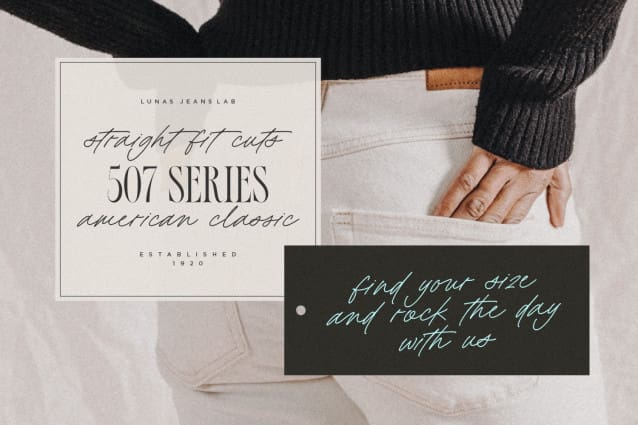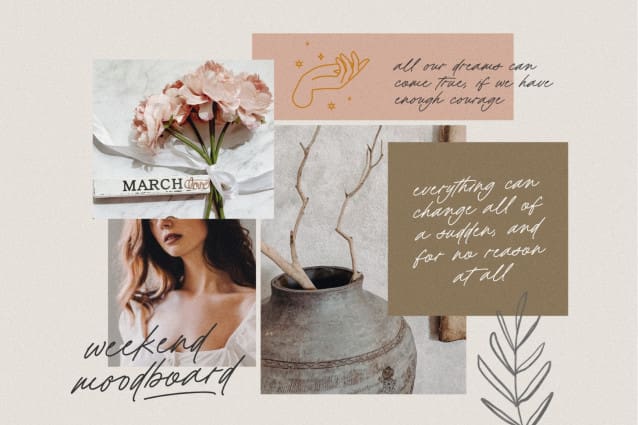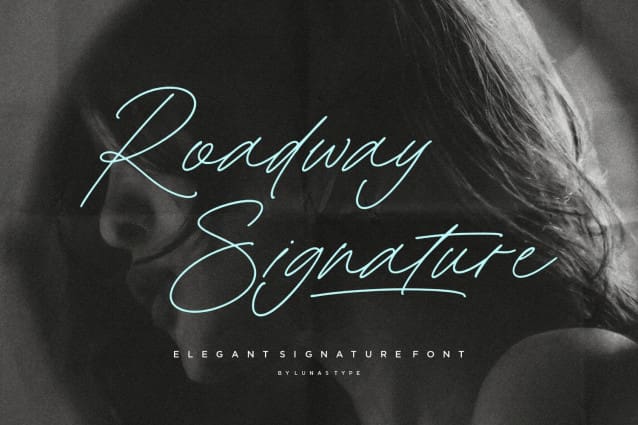
Roadway Signature Font
Roadway Signature Font is a modern and elegant signature font. This Font have natural flow and unique shape for each letter.
RoadwaySignature is perfect for many design needs such as merch, T-shirts, signature logo, wedding, book covers, social media posts, websites, events, and many more.